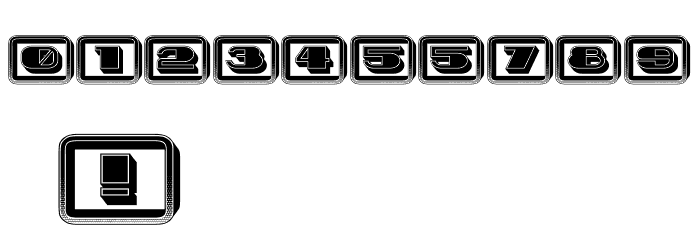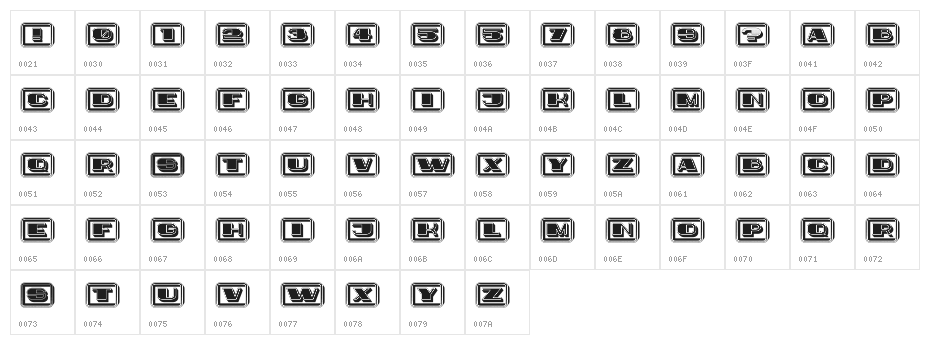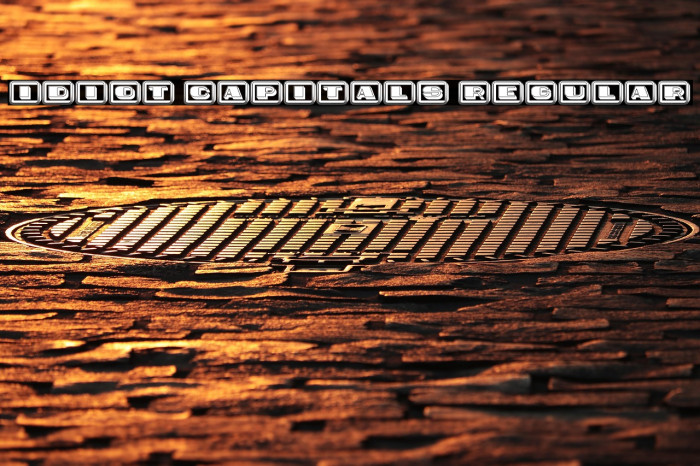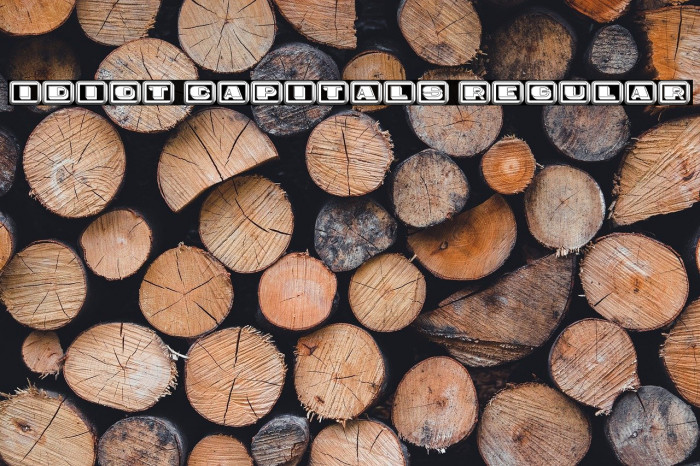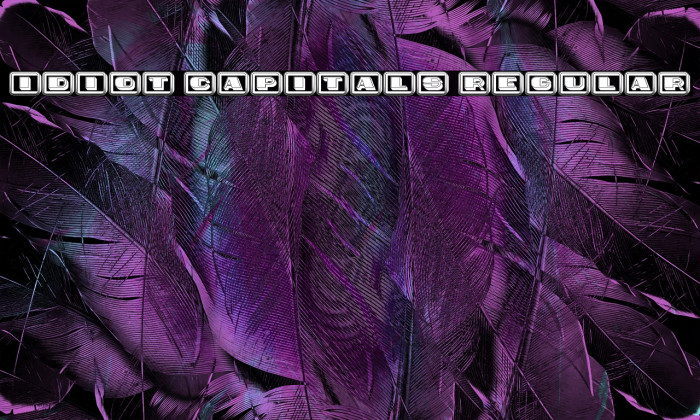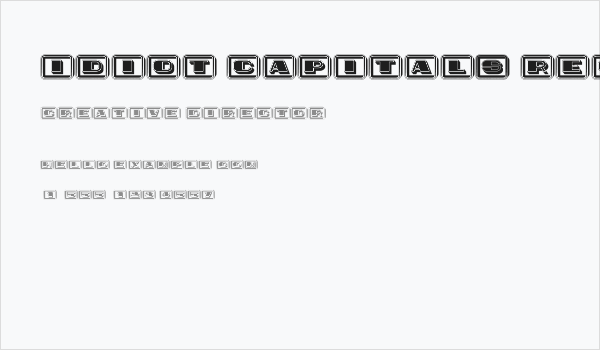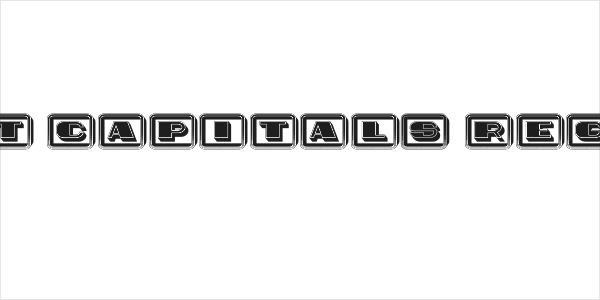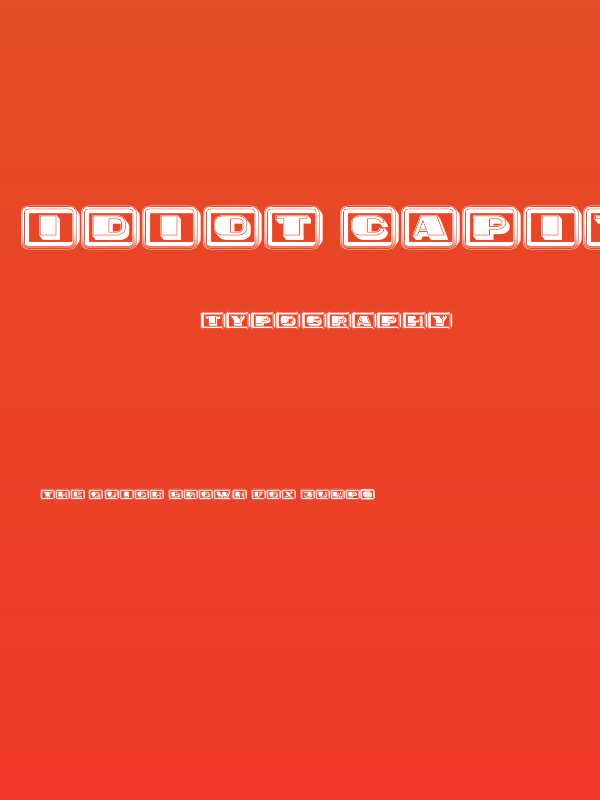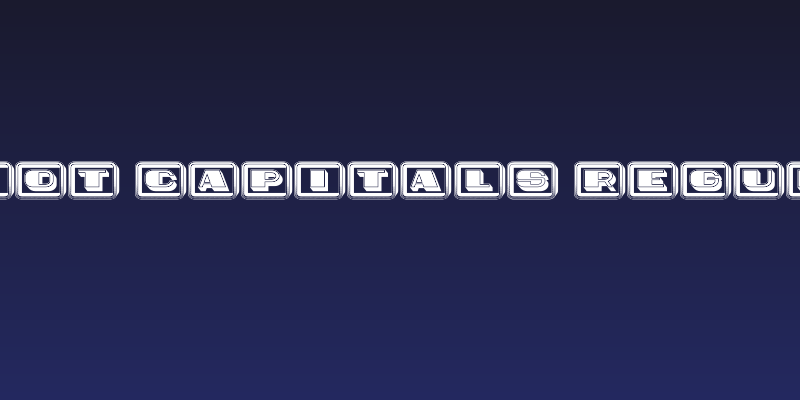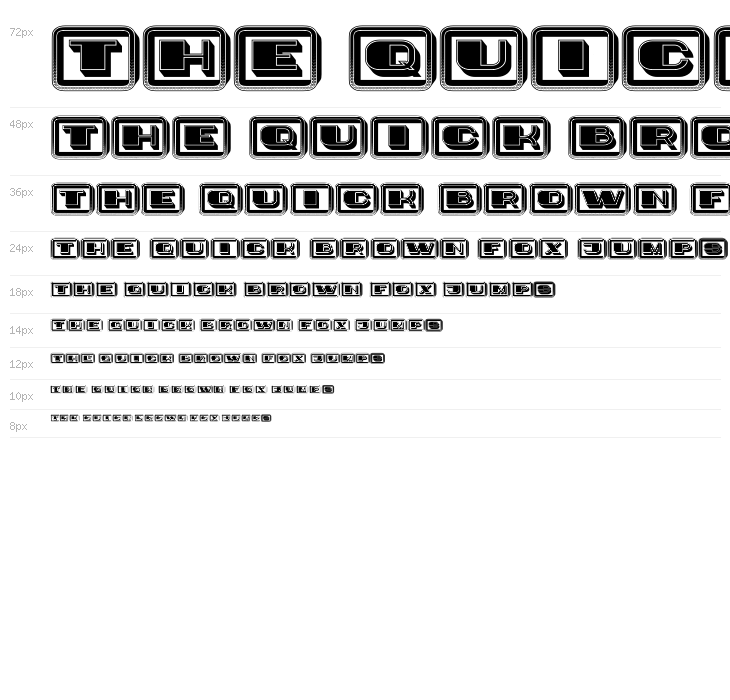
Idiot Capitals Regular Font
Idiot Capitals Regular Description
This font features a bold, decorative style with a three-dimensional appearance. Each character is enclosed in a rectangular border, giving it a distinct, block-like structure. The letters and numbers are uniformly bold, with a consistent thickness throughout. The design incorporates a shadow effect, enhancing the 3D illusion and adding depth to the characters. This font is visually striking and commands attention, making it ideal for impactful headlines or titles. The uniformity and geometric precision of the characters contribute to a modern and structured aesthetic.
| Proposed Projects | Ideal for posters, logos, video game titles, and any project requiring a bold, eye-catching typeface. |